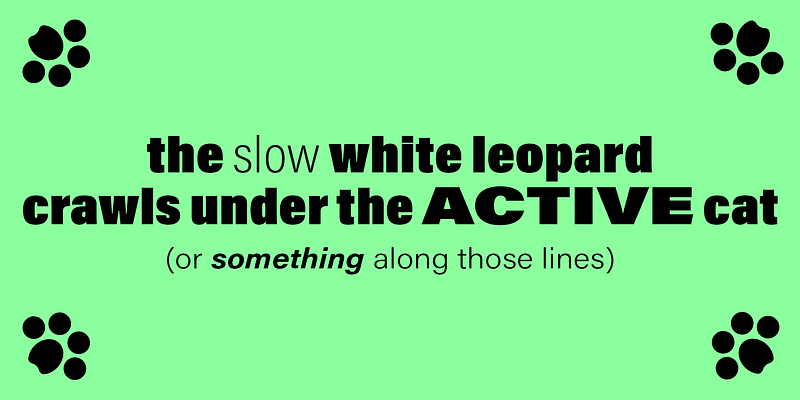
Acumin
Acumin is a versatile sans-serif typeface family intended for a balanced and rational quality. Solidly neo-grotesque, it performs beautifully at display sizes but also maintains an exceptional degree of sensitivity for text sizes.